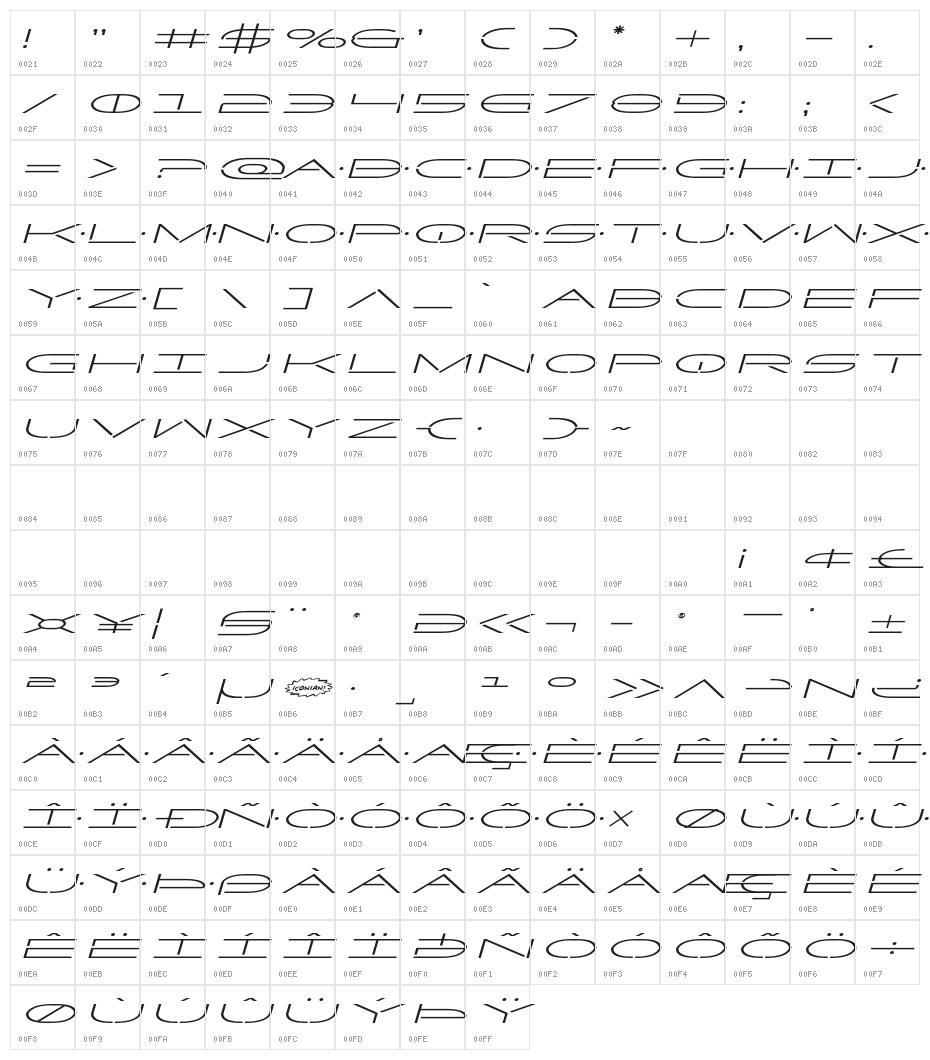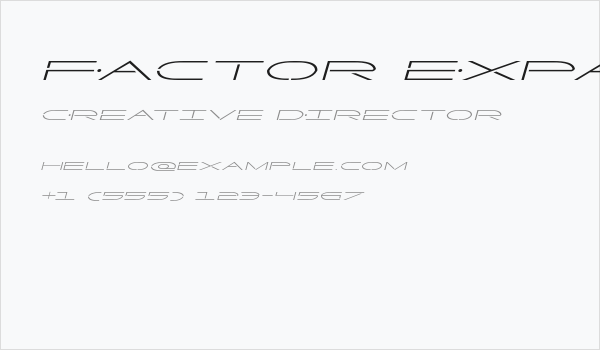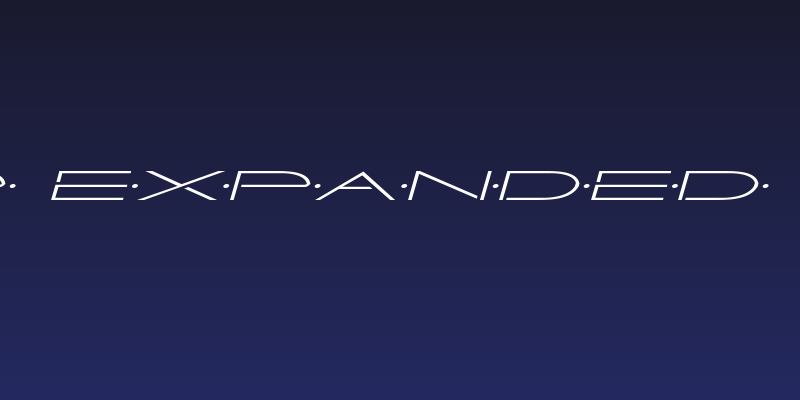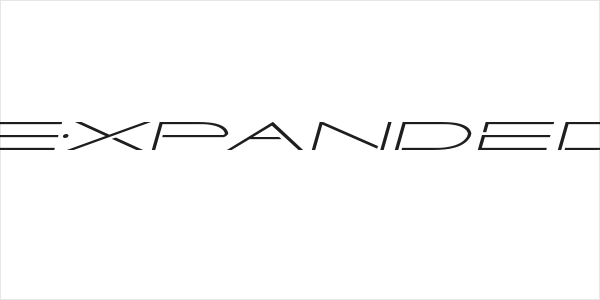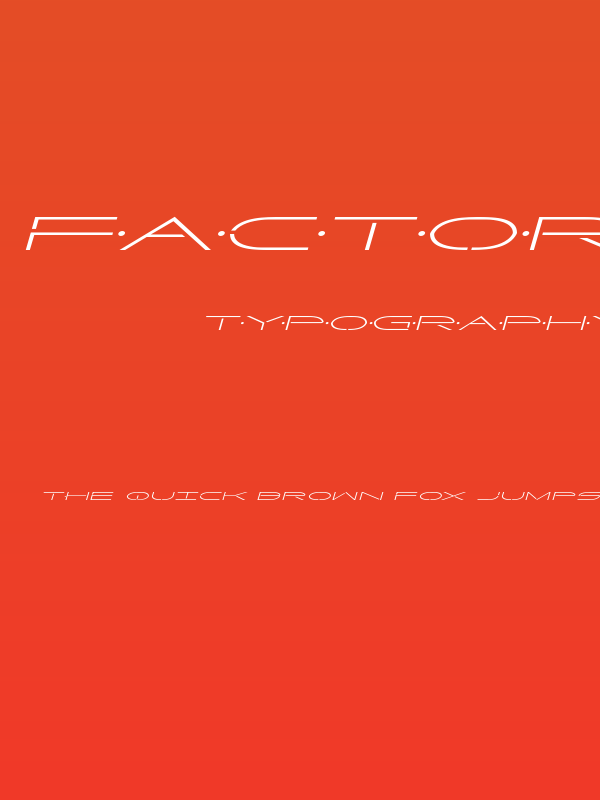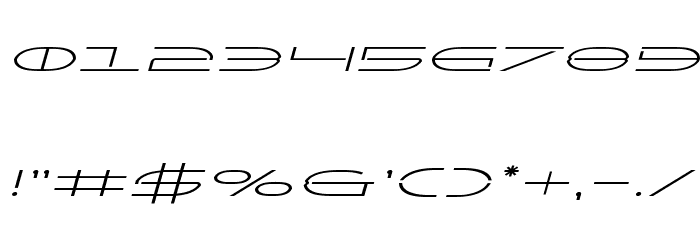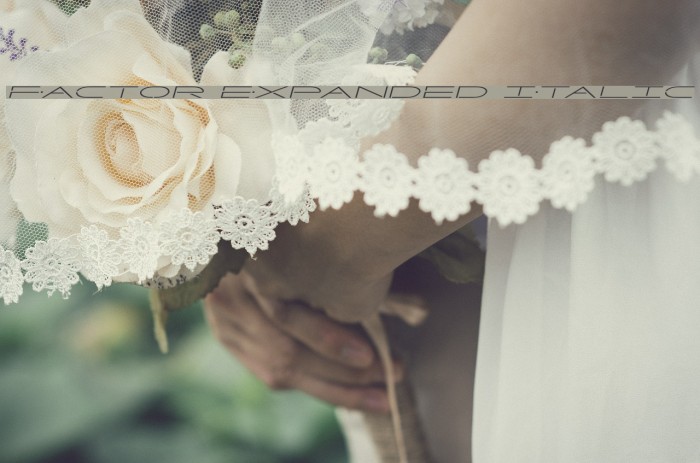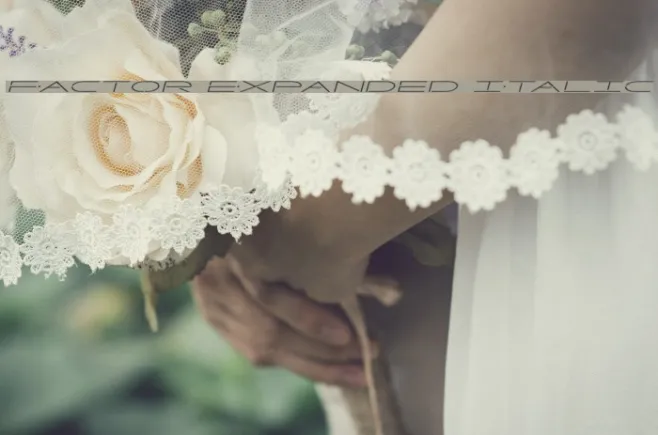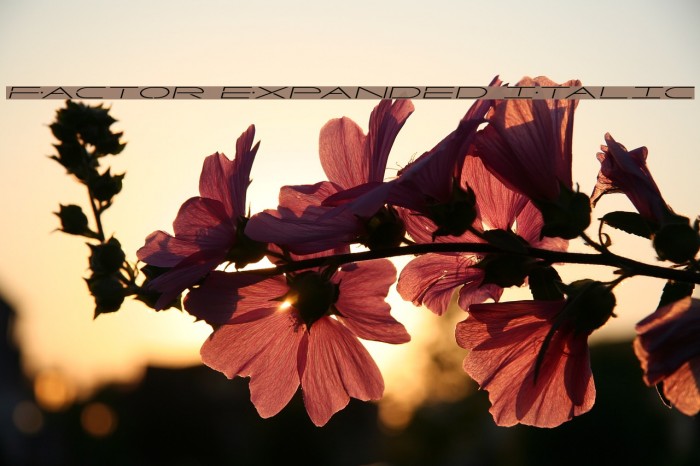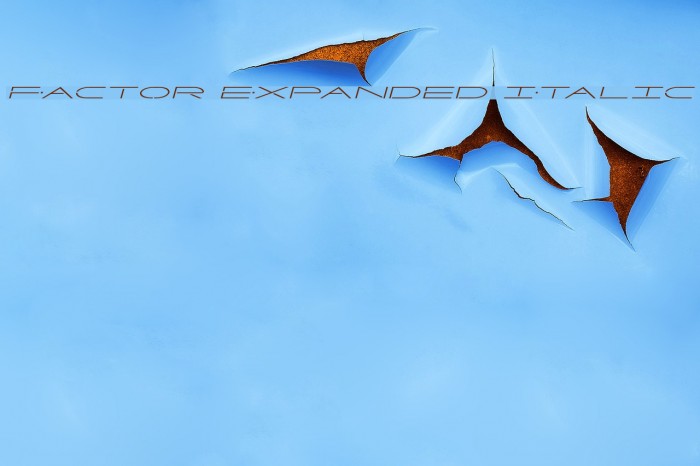
Factor Expanded Italic Font
Factor Expanded Italic Description
This font features a futuristic and sleek design with elongated and expanded characters. The letters are italicized, giving them a dynamic and forward-leaning appearance. Each character is composed of thin lines with rounded edges, creating a sense of fluidity and motion. The spacing between characters is wide, enhancing readability and emphasizing the modern aesthetic. The numbers and special characters maintain the same stylistic approach, ensuring consistency across all glyphs. This font is ideal for projects that require a contemporary and innovative look.
| Proposed Projects | Ideal for technology branding, sci-fi posters, modern advertising, and innovative product packaging. |